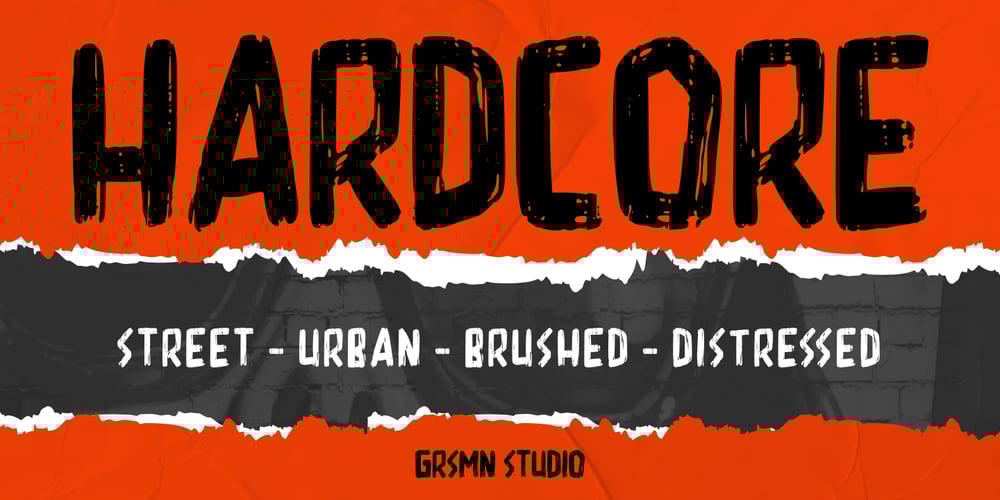
Hardcore Font Family was designed by Risman Ginarwan and published by Garisman Studio. Hardcore contains 1 styles and family package options. Hardcore is made with a fresh urban edge; delivering a stylish script which is guaranteed to add an eye-catching appeal to your logo designs, brand imagery, quotes, product packaging, merchandise, social media posts, and more. Features: – All Caps letters – Numbers & Punctuation – Simple installation Work for PC and MAC – PUA Encoded Open